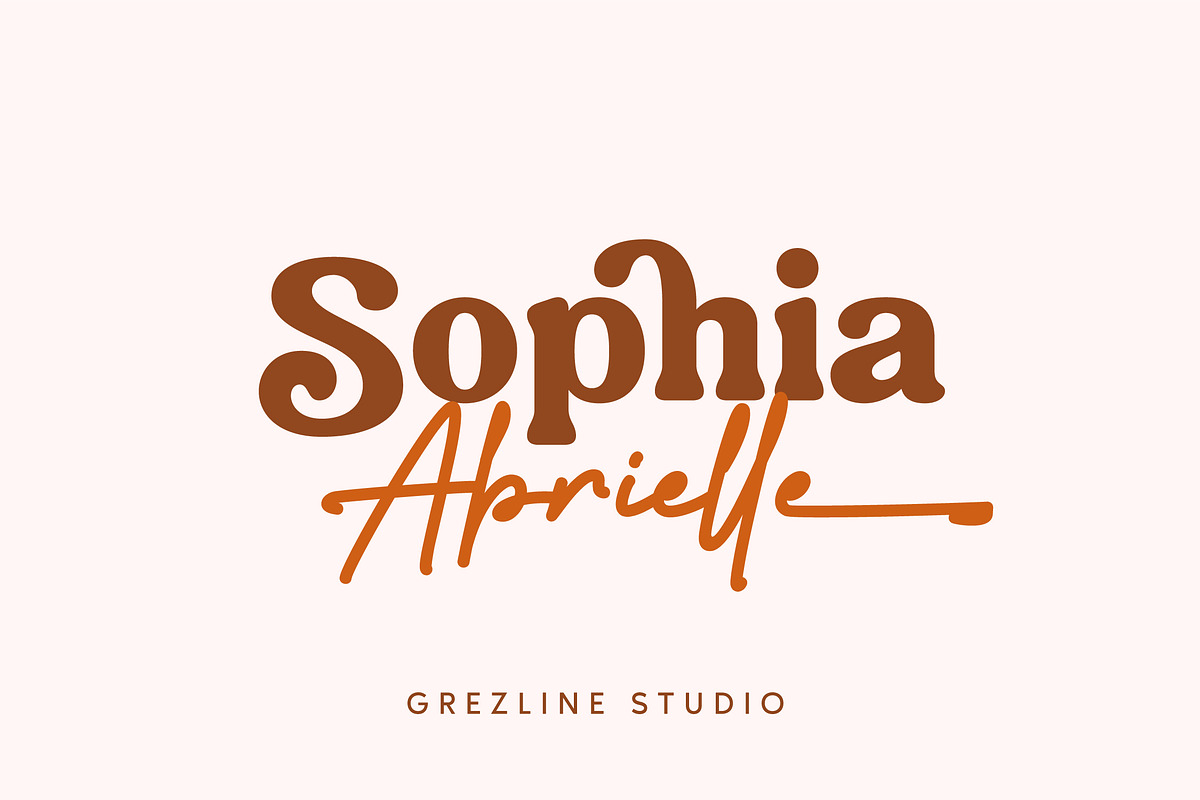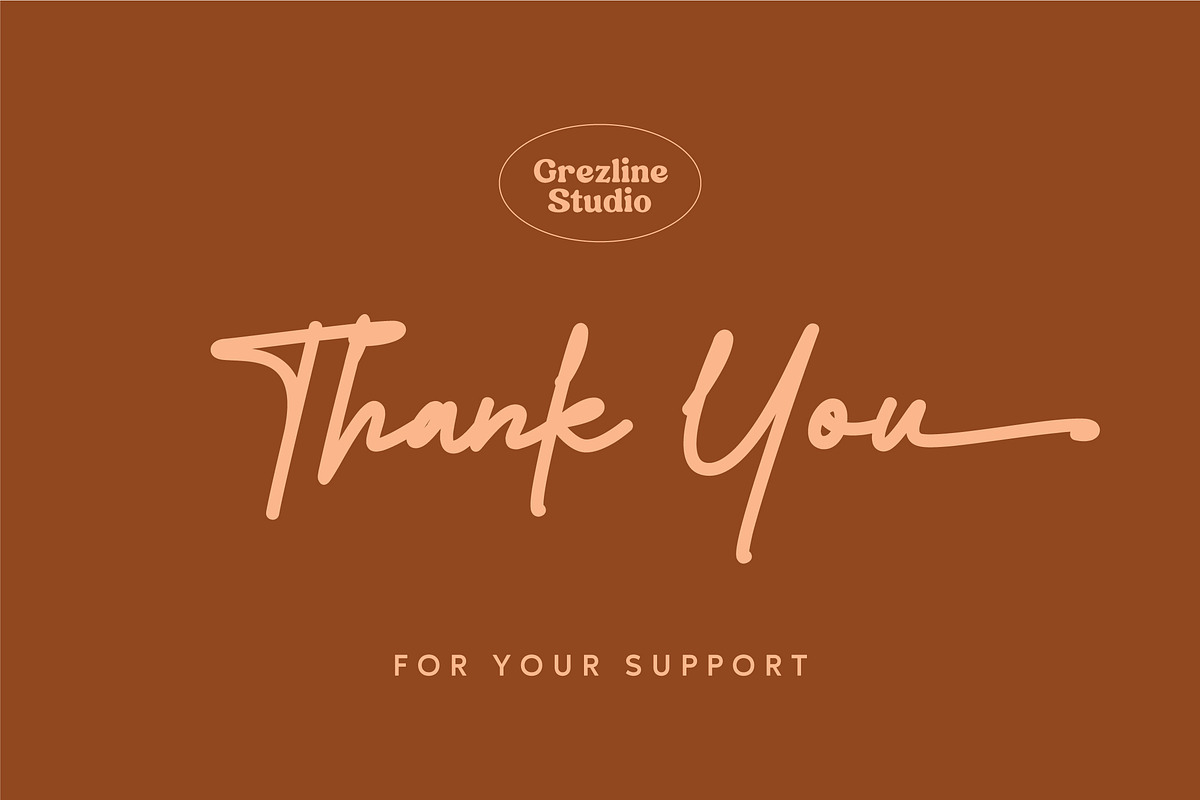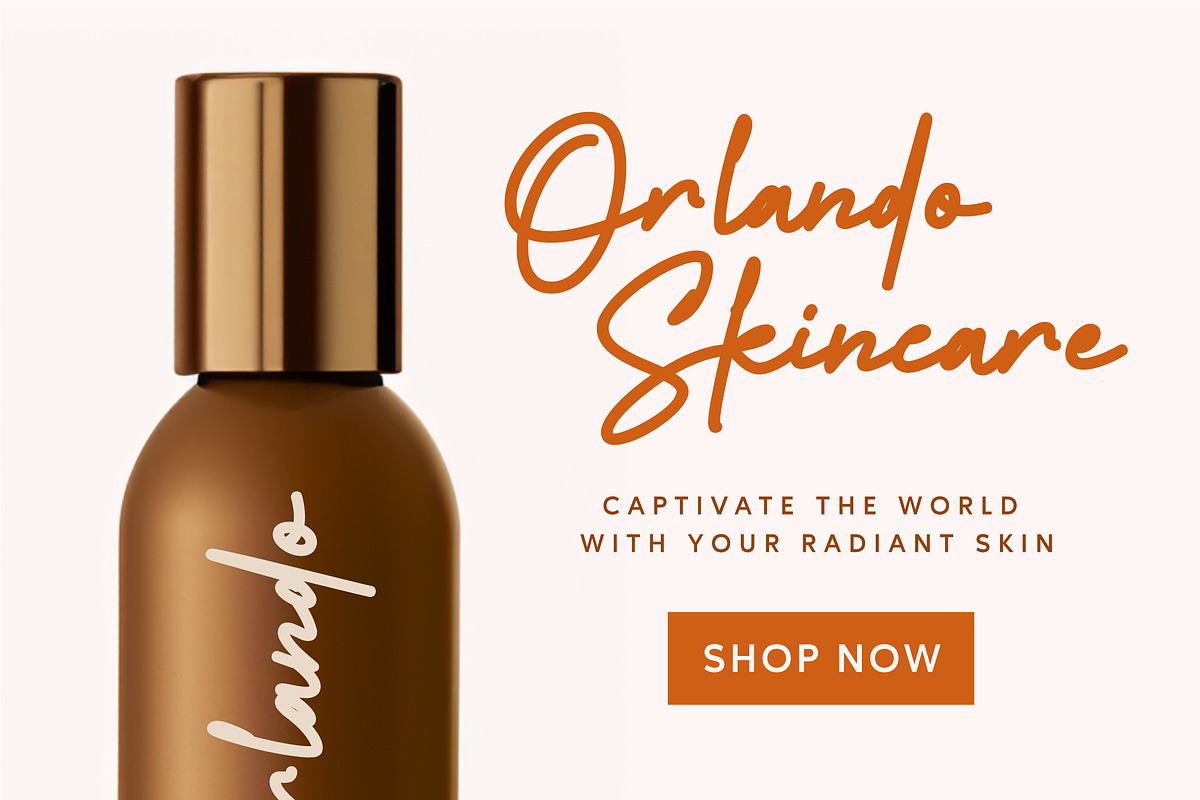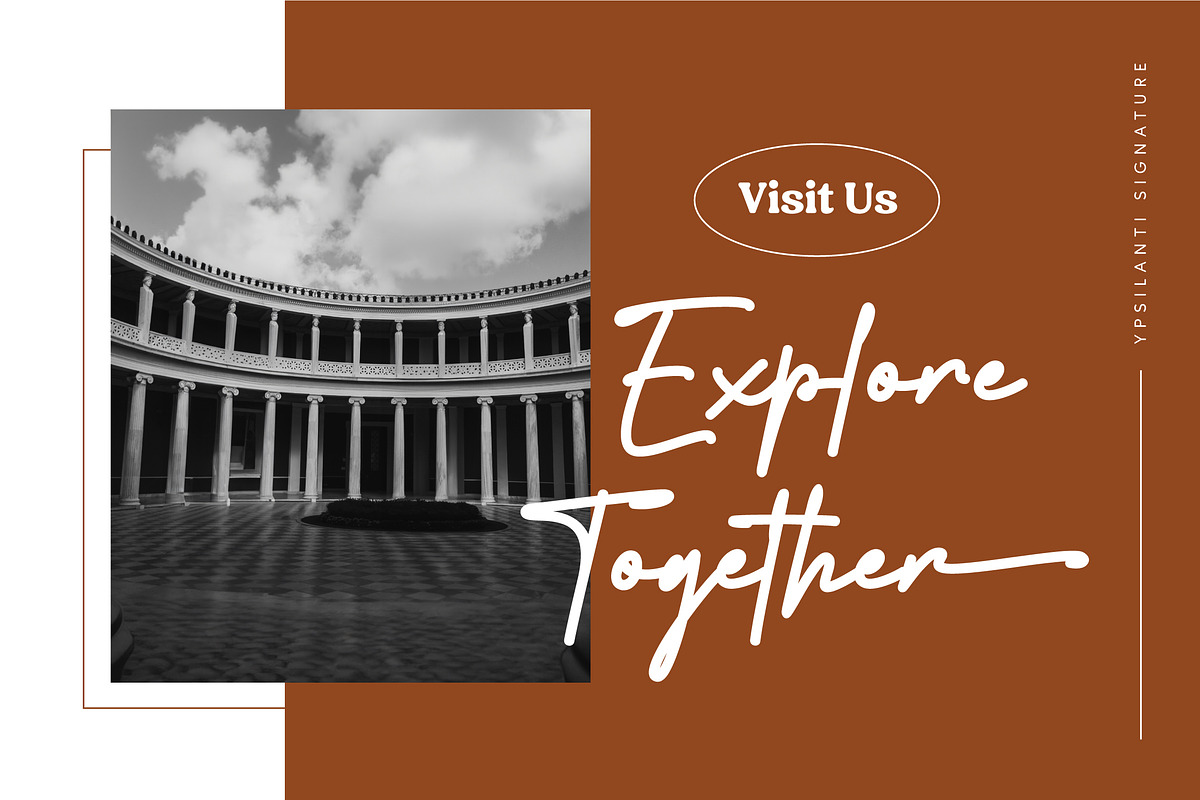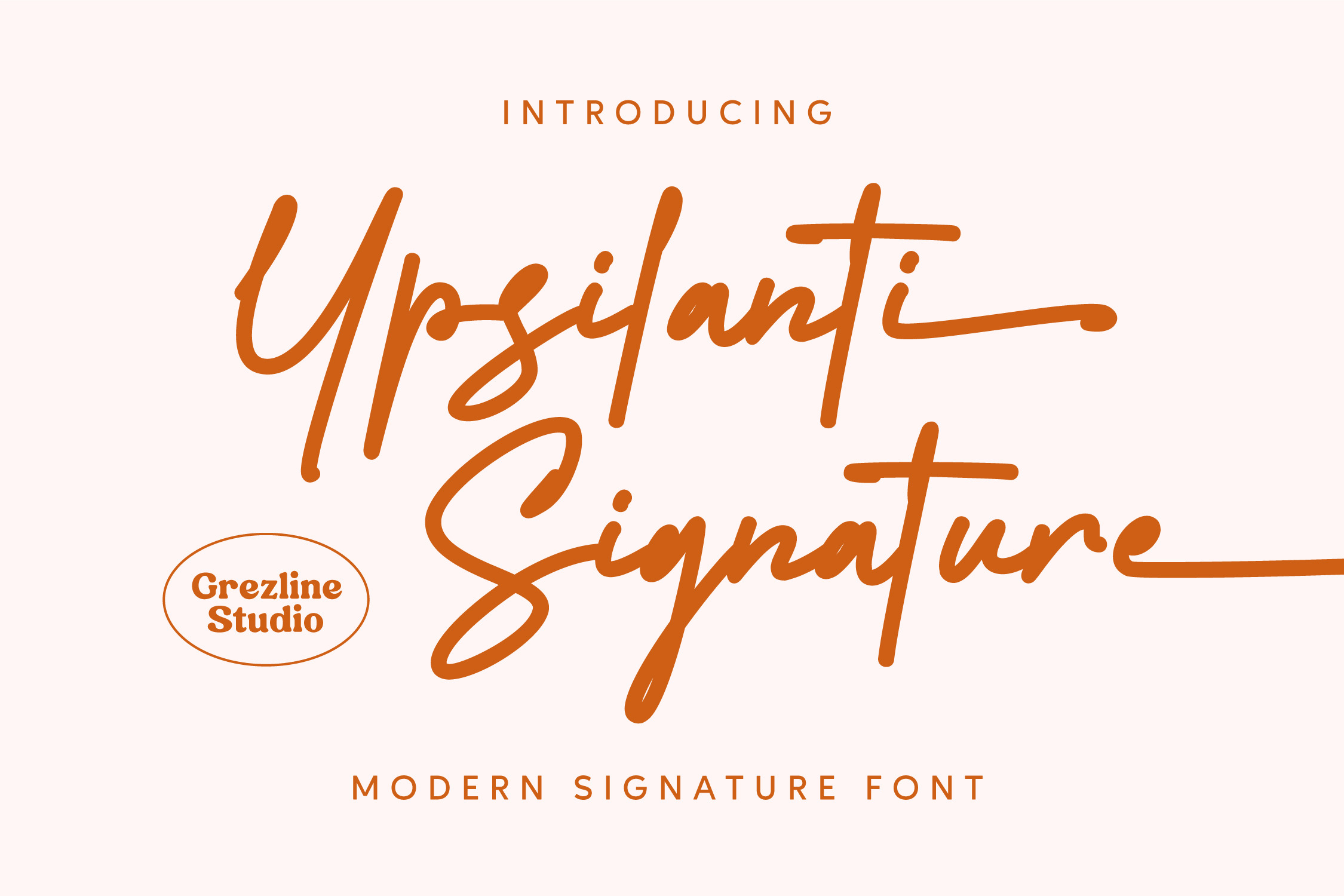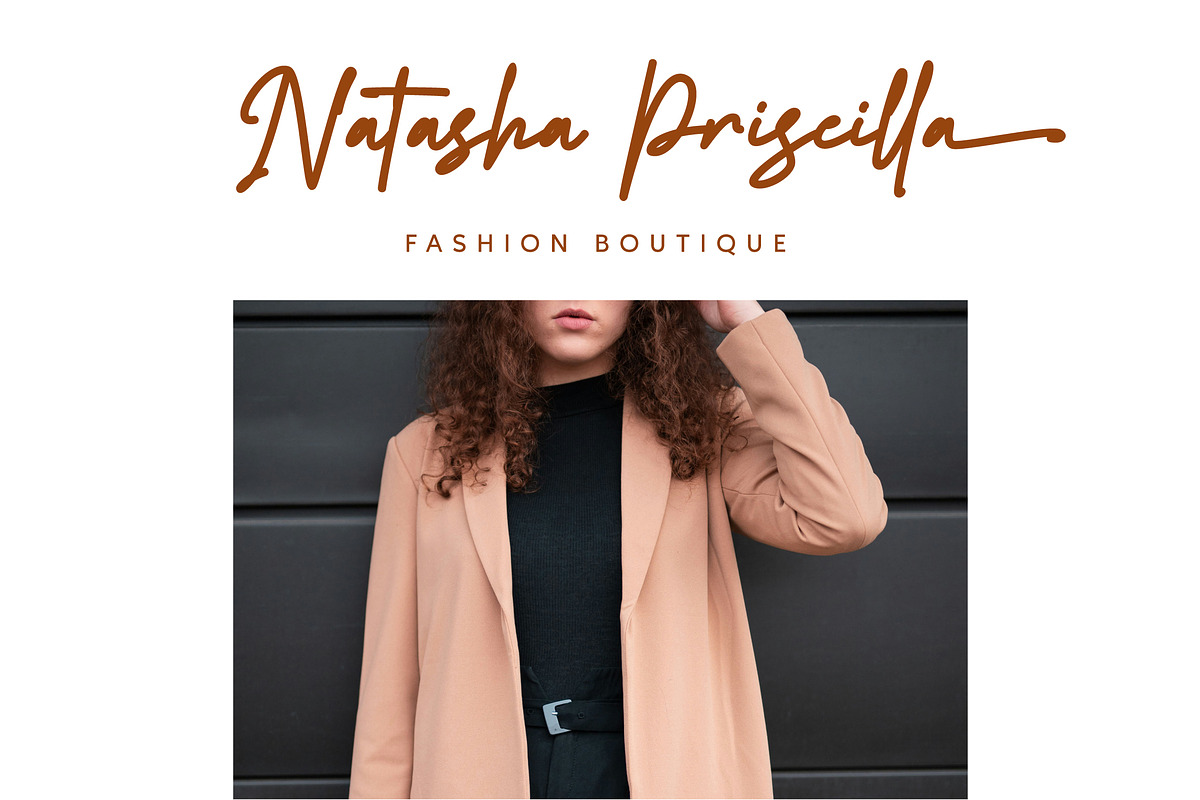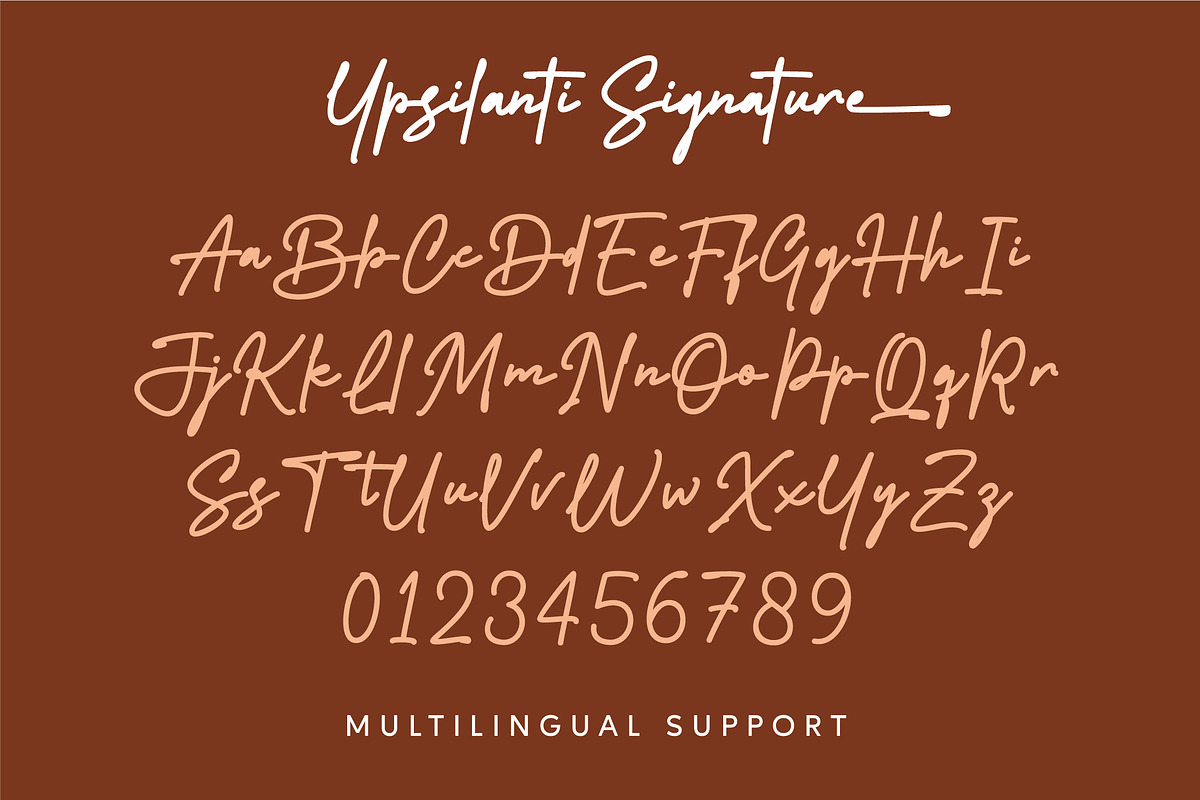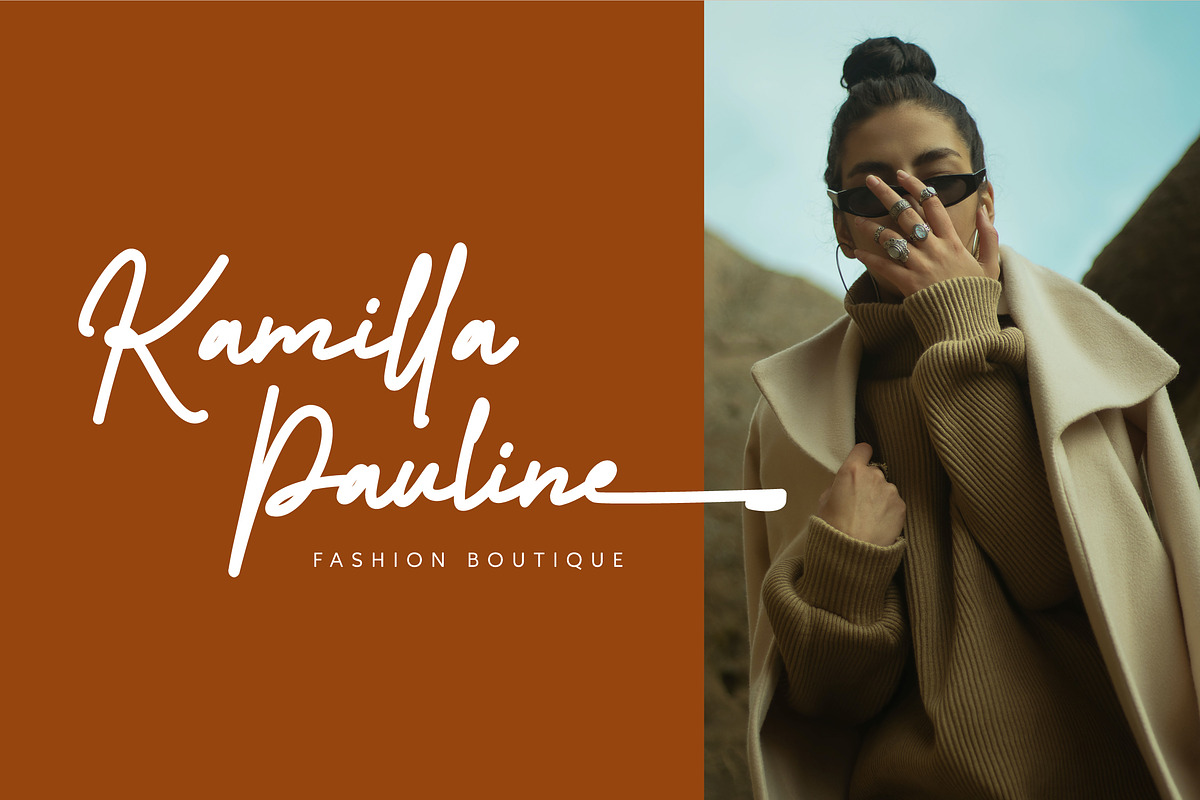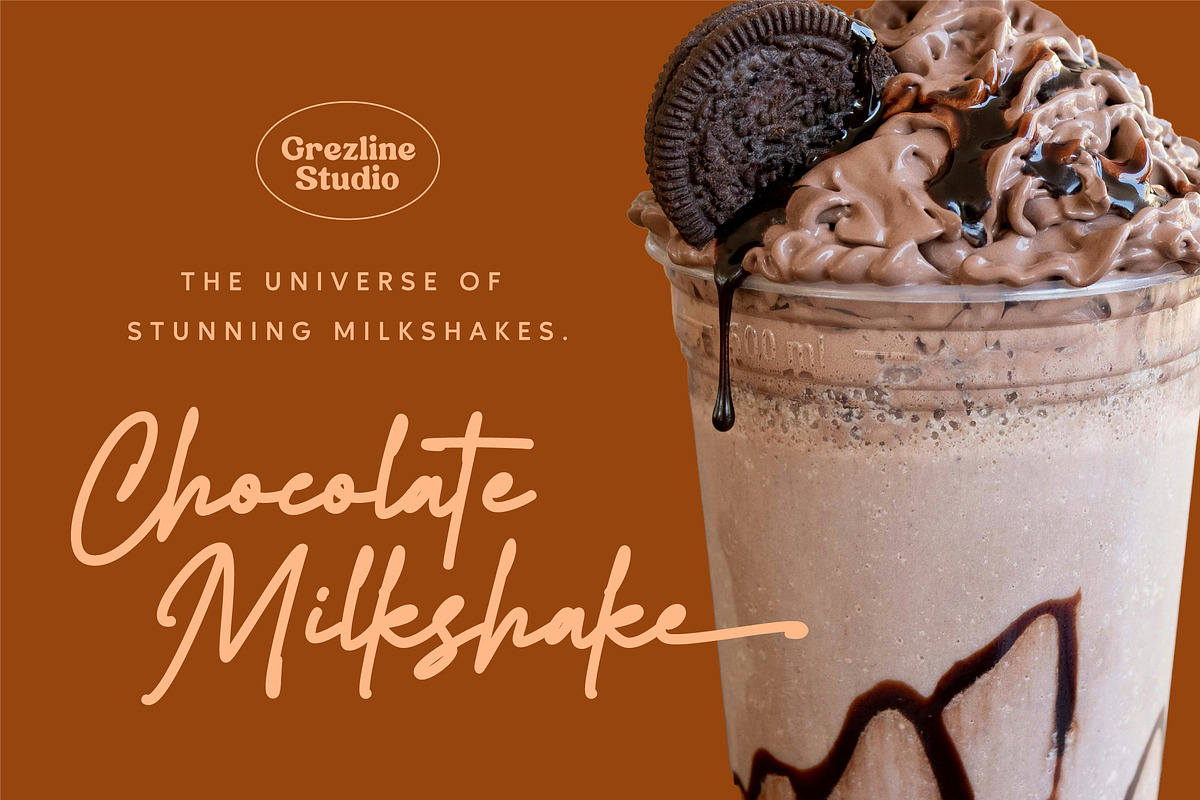
Ypsilanti Signature Font
Ypsilanti Signature is a modern monoline signature script font. This type of font perfectly made to be applied for fashion-related design, but you can use it in other various formal forms such as invitations, labels, logos, magazines, books, greeting / wedding cards, packaging, stationery, labels or any type of advertising purpose.
- Alternate and Ligature
- Multilingual Language